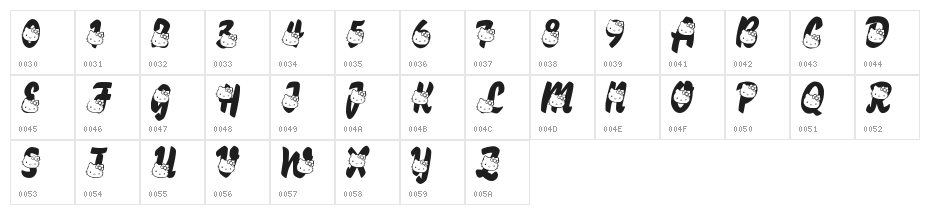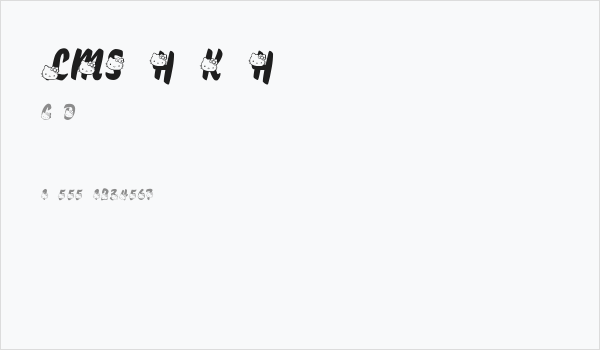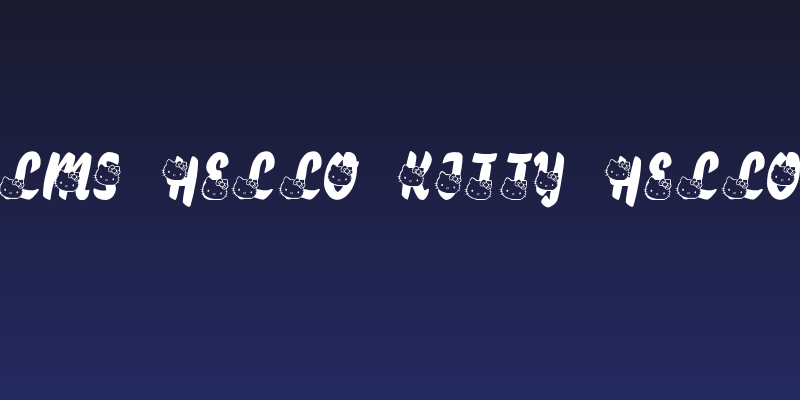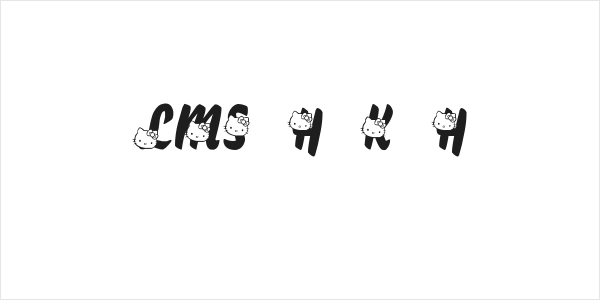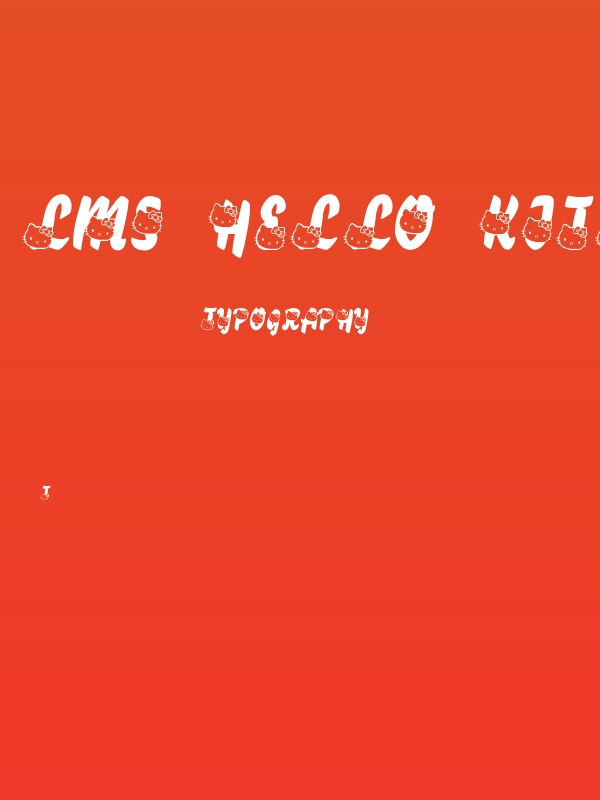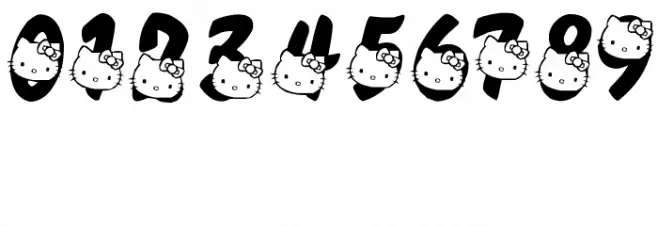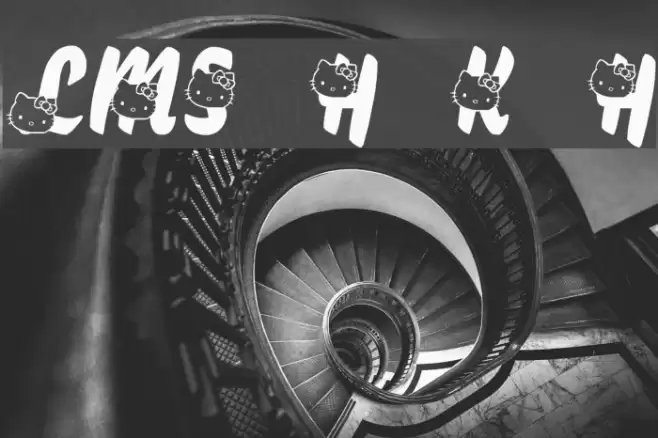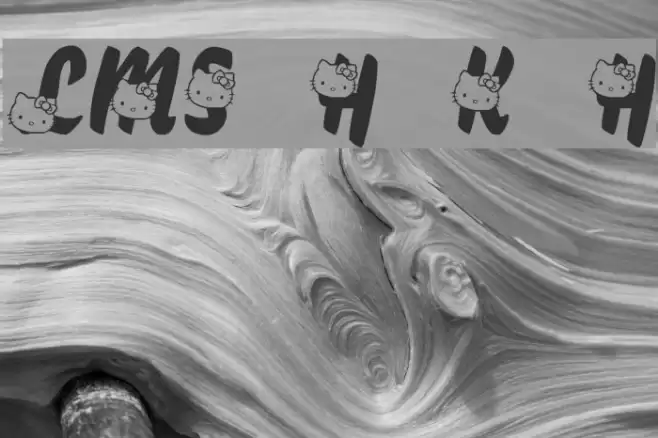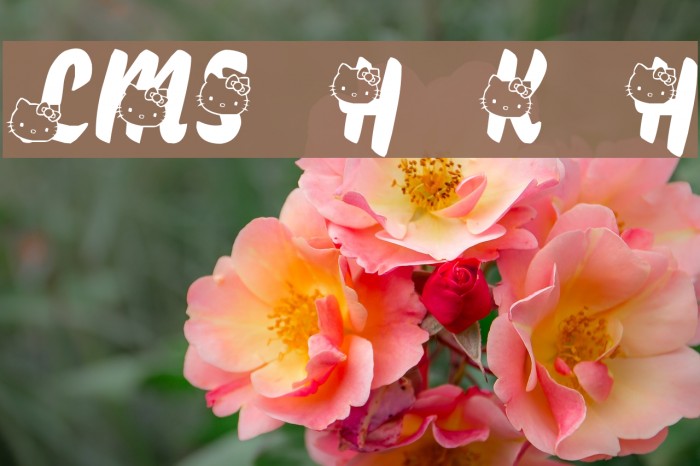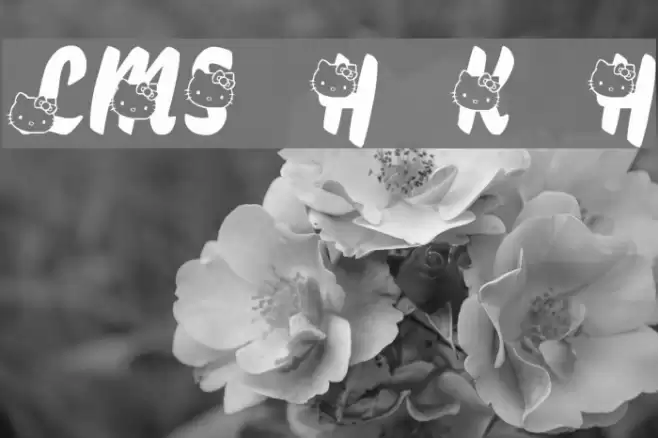
LMS Hello Kitty Hello Font
LMS Hello Kitty Hello Description
This playful and whimsical font features a unique design where each character is accompanied by a small, iconic cartoon face. The letters are bold and slightly italicized, creating a sense of movement and fun. The font is highly decorative, making it ideal for projects that aim to capture a sense of joy and nostalgia. The characters are well-spaced, allowing for easy readability despite the intricate design elements. The numbers follow the same style, ensuring consistency across all text elements. This font is perfect for children's projects, playful branding, or any design that seeks to incorporate a touch of whimsy.
| Overall Style | Playful, Whimsical |
| Use Case | Logos, Headlines, Themed Events |
| Proposed Projects | Ideal for children's books, playful branding, party invitations, and themed merchandise. |